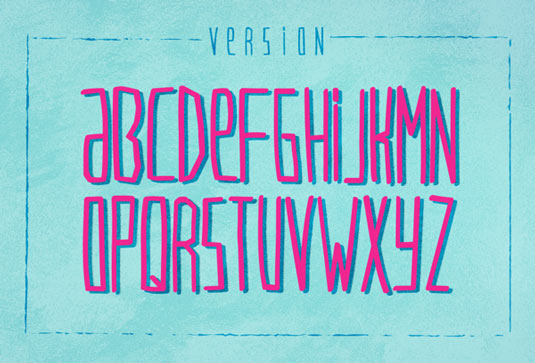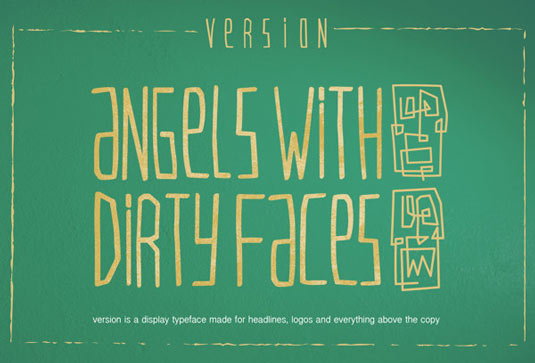
Font of the day: VersionType
VersionType by Victor Coreas
A condensed, sans-serif font, VersionType was created by senior designer Victor Coreas. "It is meant to be playful and very loose," he comments. The typeface includes a full set of upper and lower case letters, numbers and special characters.